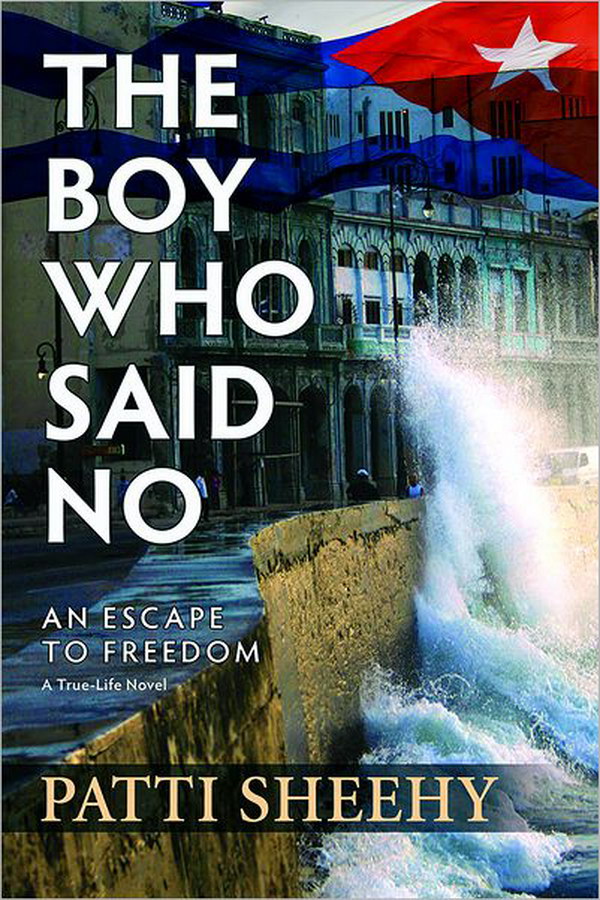
The Boy Who Said No Font
BookThe Boy Who Said No: An Escape To Freedom is a historical fiction novel by Patti Sheehy, which follows the life of a young Cuban man named Frank Mederos, who refuses to support Fidel Castro's regime and chooses to risk everything for his freedom.
The book title "The Boy Who Said No: An Escape To Freedom" is most likely written in Hypatia Sans Pro Bold font, created by Thomas Phinney. Hypatia Sans is a geometric sans serif typeface with humanist elements. You can find more details about the font here.